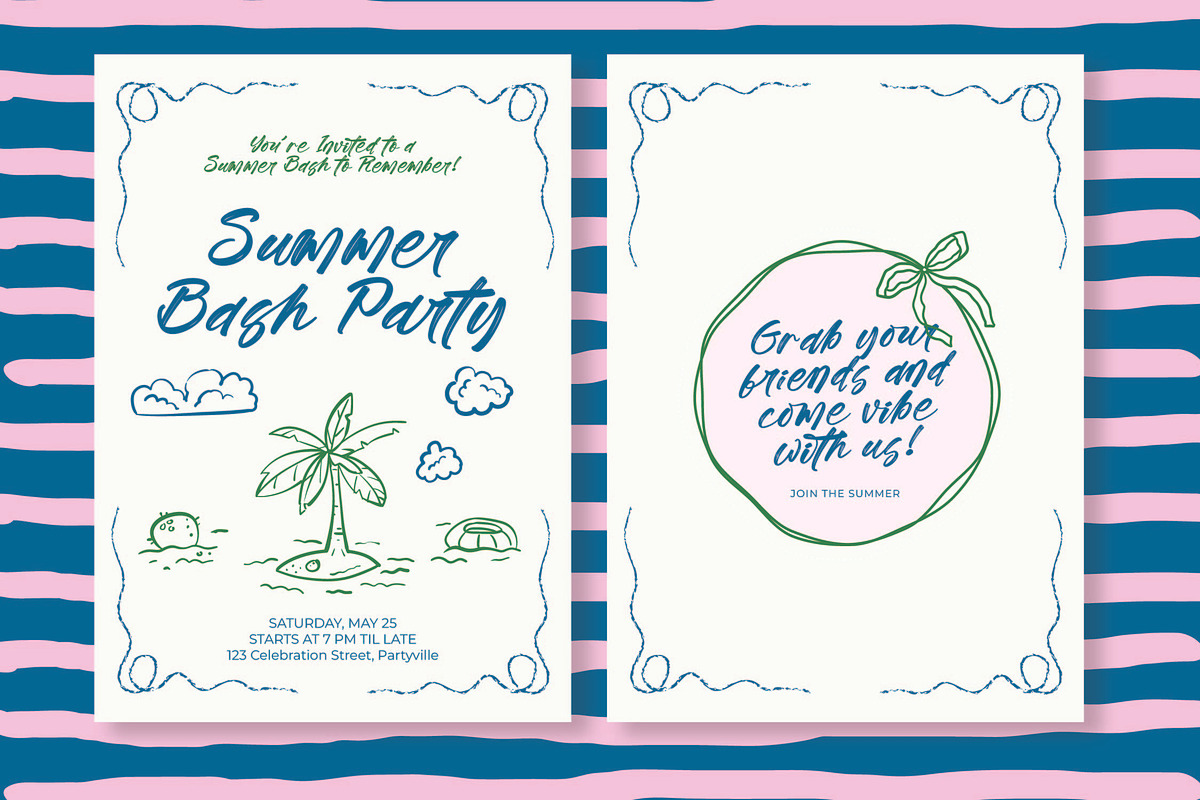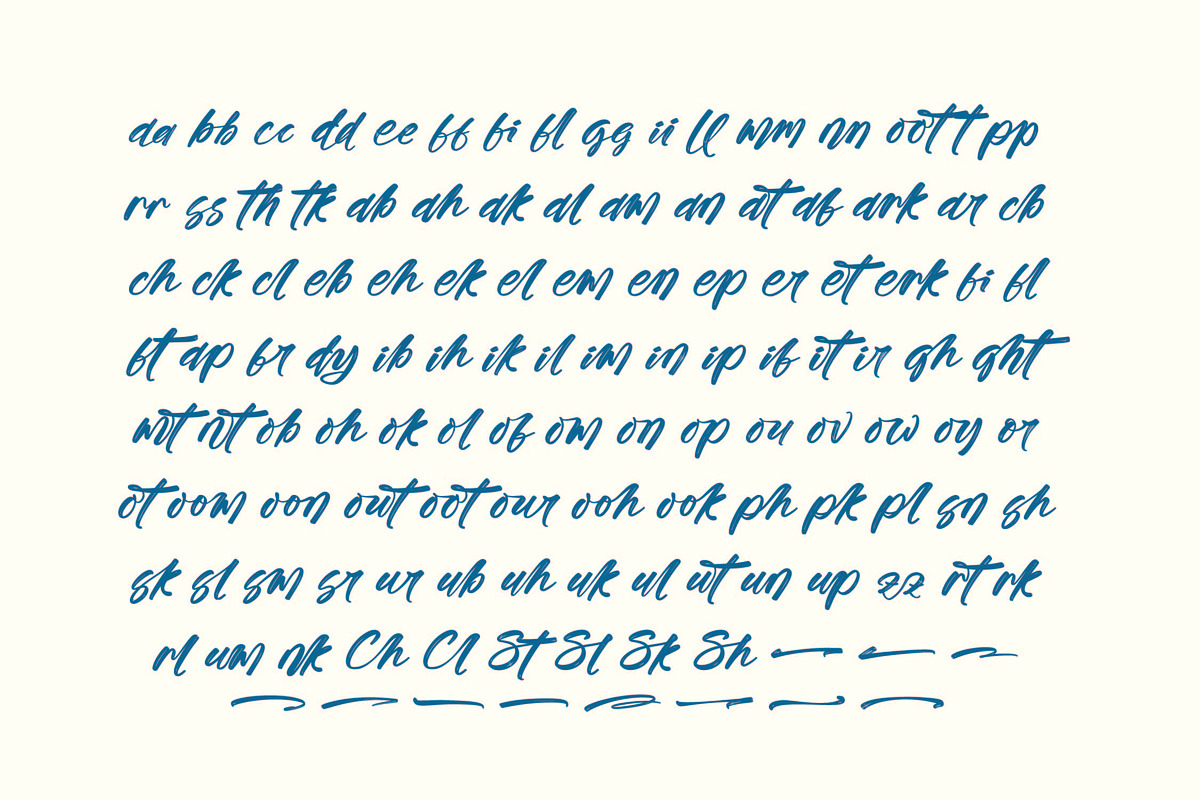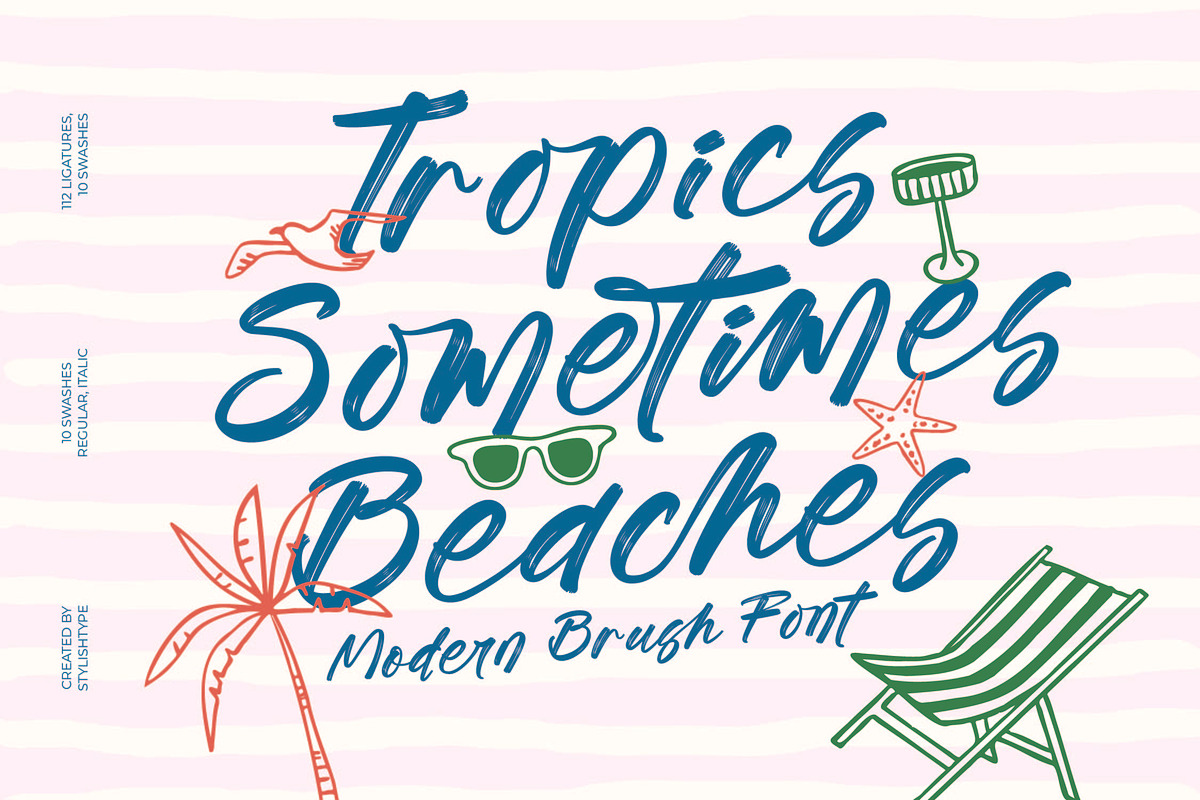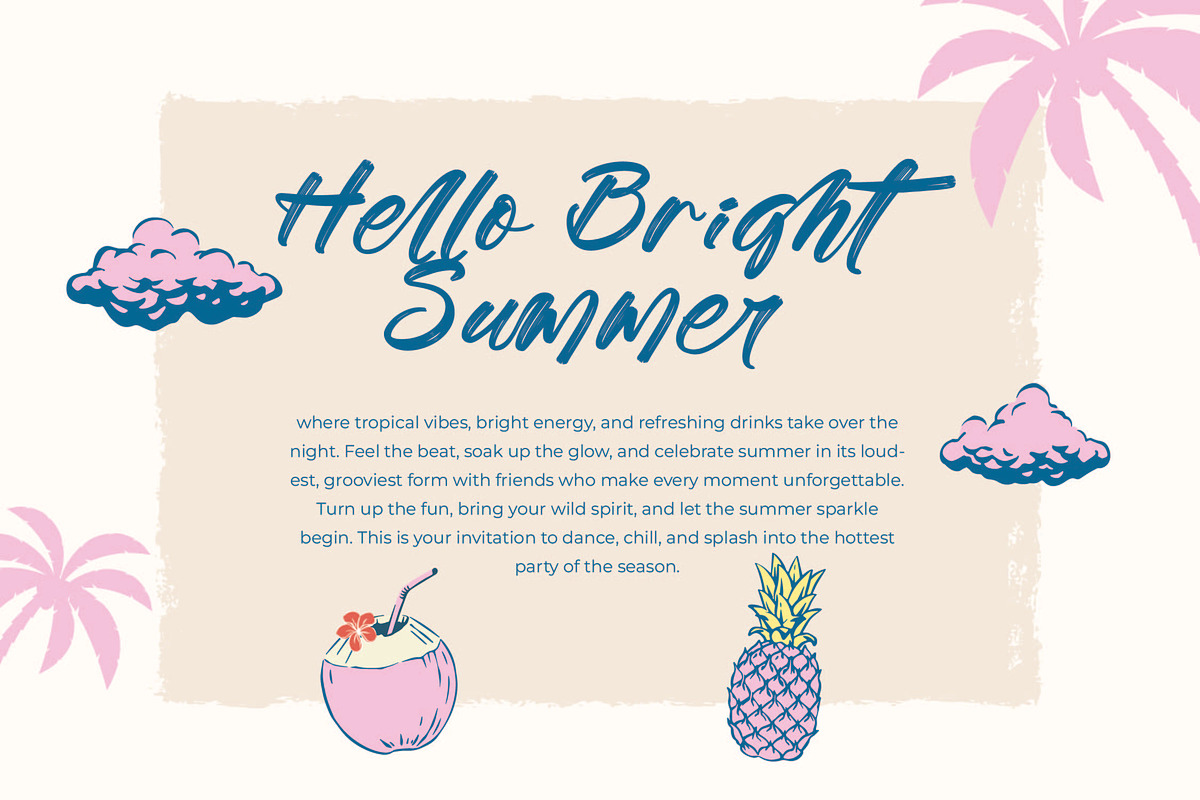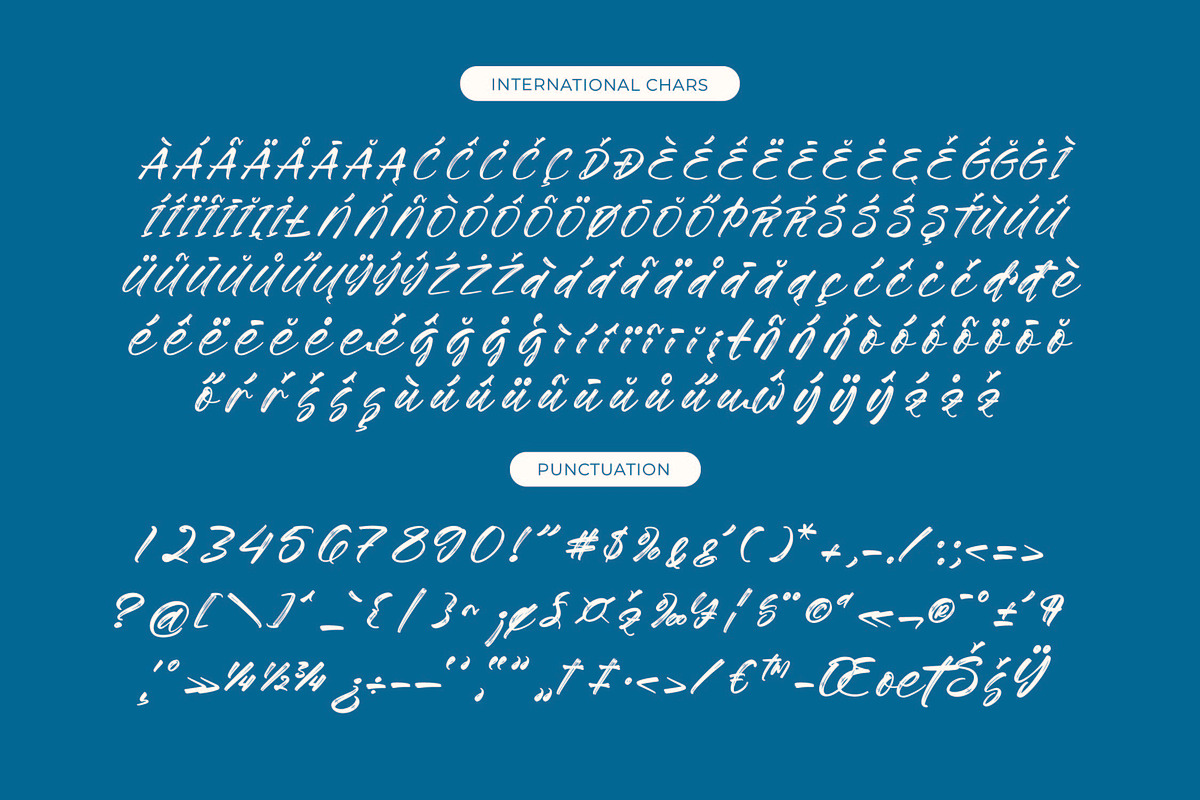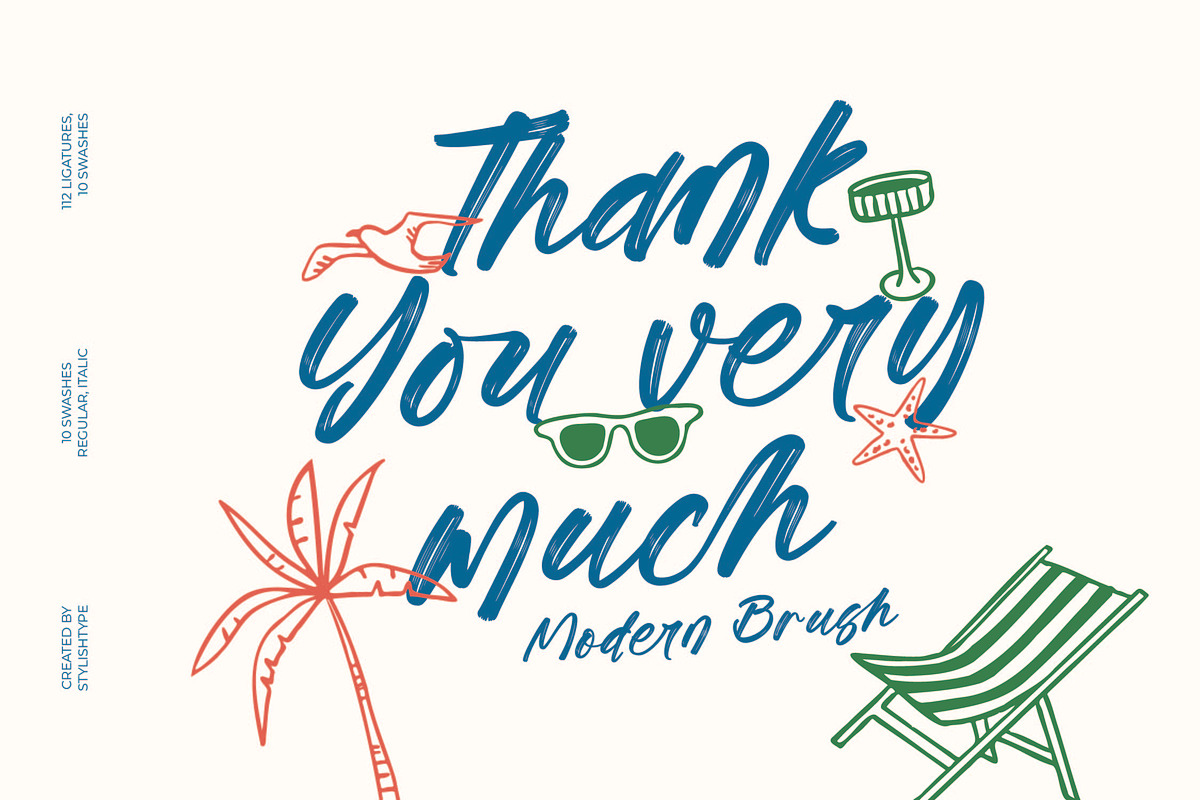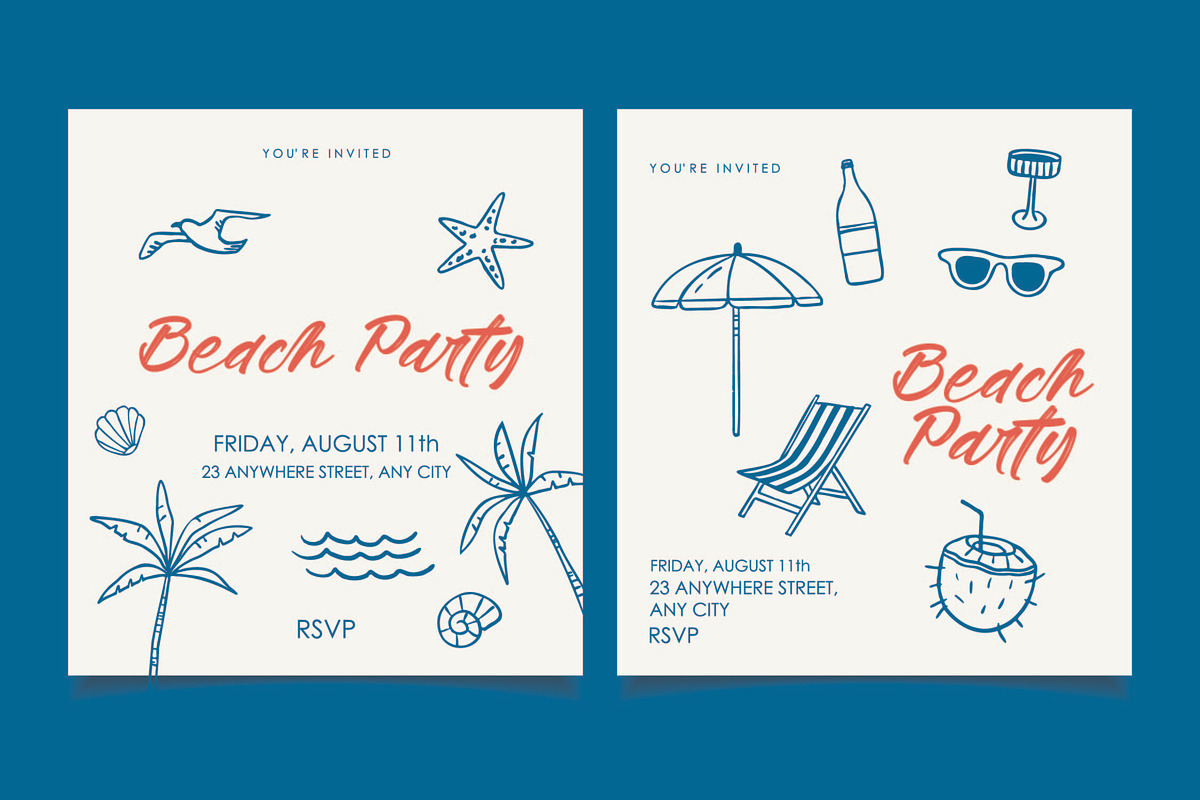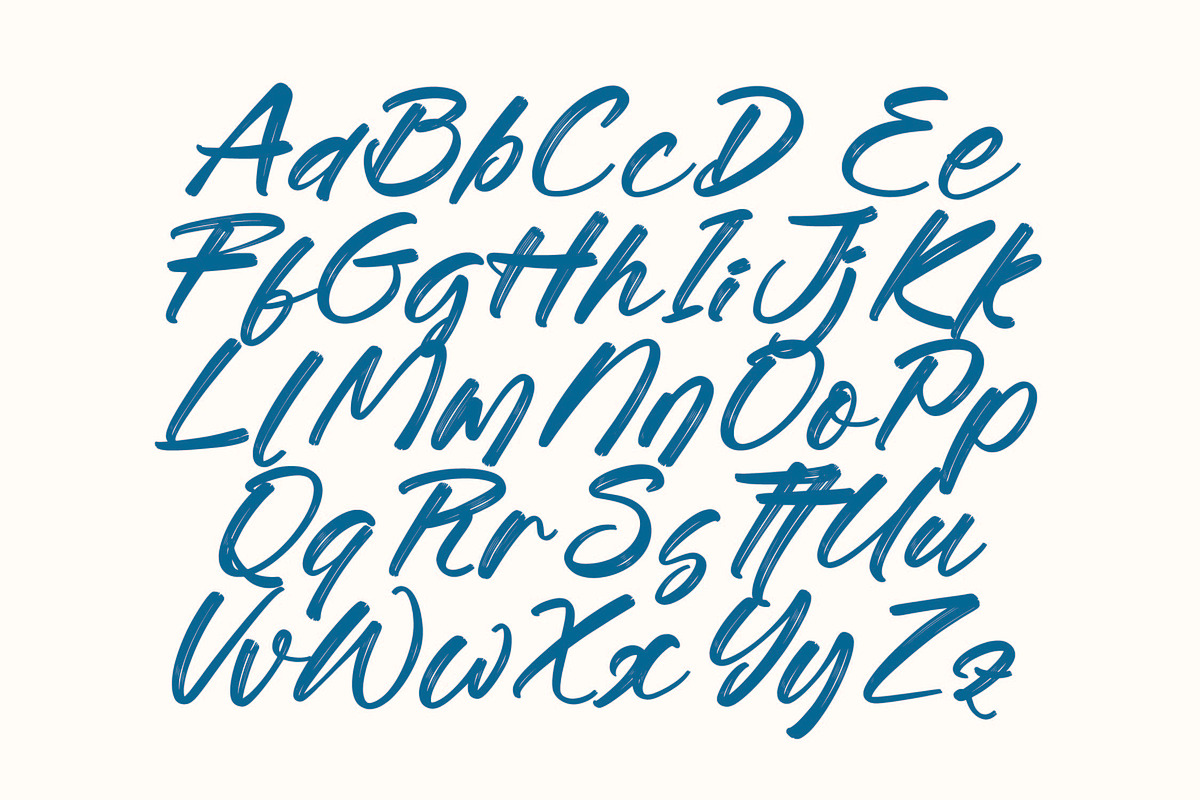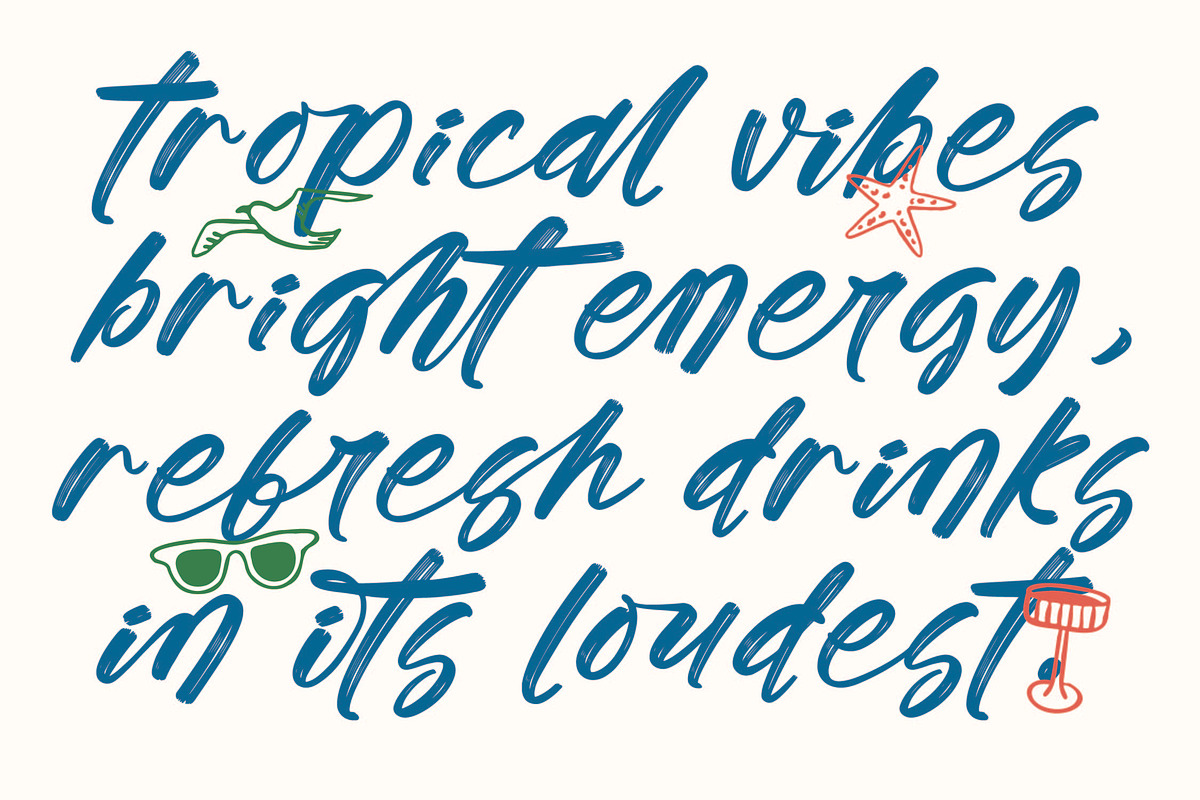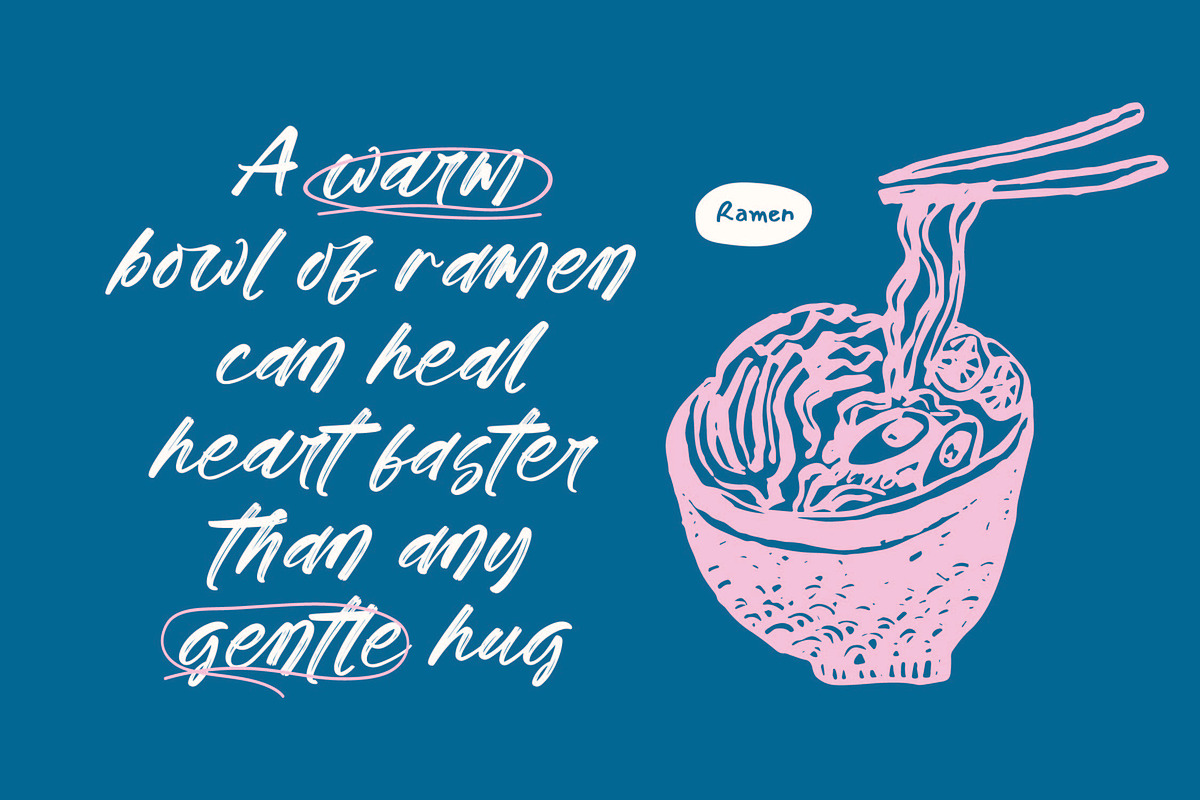
Tropics Sometimes Beaches
Tropics Sometimes Beaches - Modern Brush Font , Tropics Sometimes Beaches is a modern brush font with energetic strokes, relaxed summer vibes, and a playful handwritten style. Its expressive brush texture and beach-inspired personality make it perfect for travel branding, summer posters, surf-themed graphics, packaging, social media quotes, apparel design, and fun lifestyle content. This typeface brings a warm, carefree, and tropical mood to any creative project.
Featuring 112 ligatures, 10 swashes, and a smooth handwritten structure, Tropics Sometimes Beaches provides a wide range of expressive lettering options. Designers can easily create dynamic titles, stylish logotypes, decorative compositions, and breezy handwritten layouts. With its bold brush rhythm and sunny attitude, this font is ideal for projects that want to feel vibrant, fun, and full of holiday spirit.